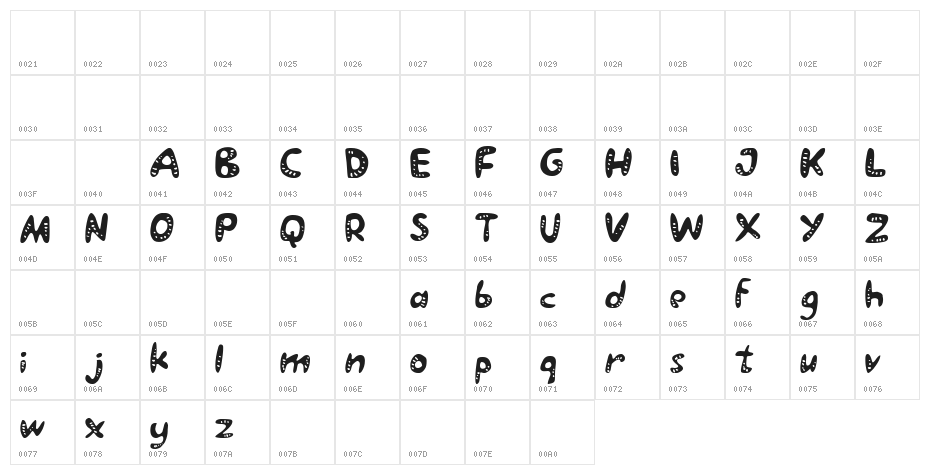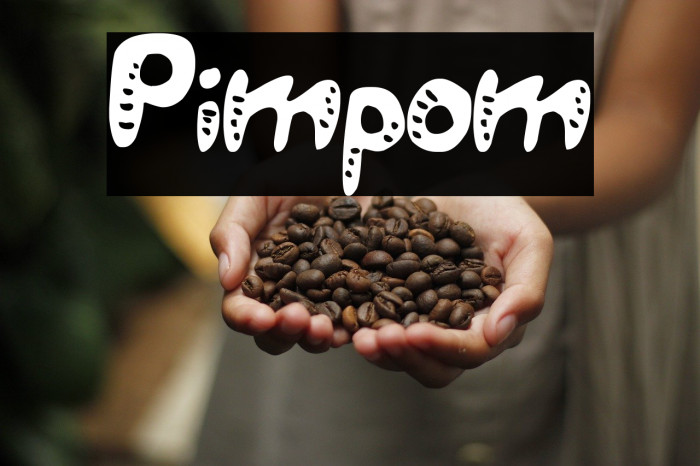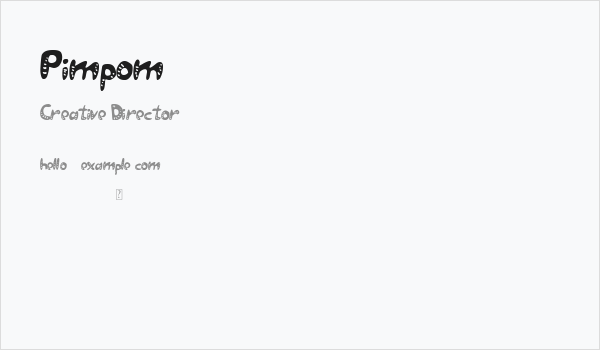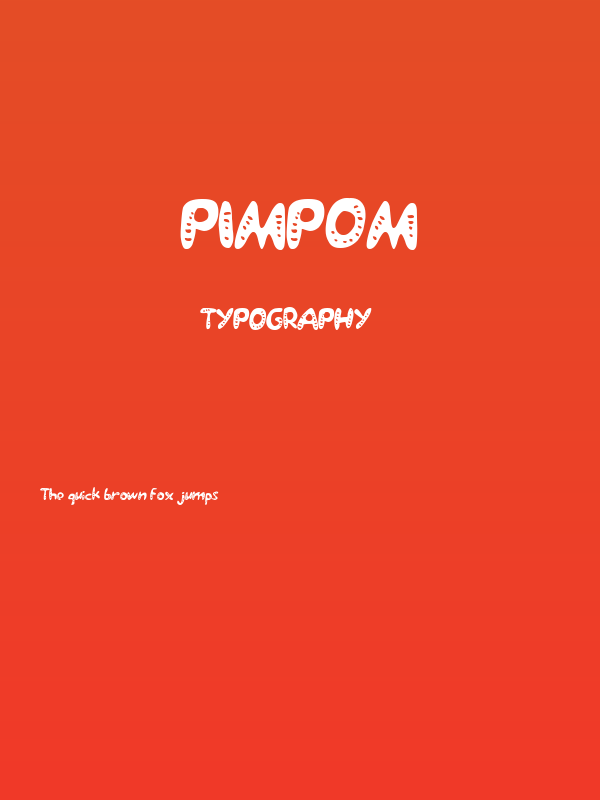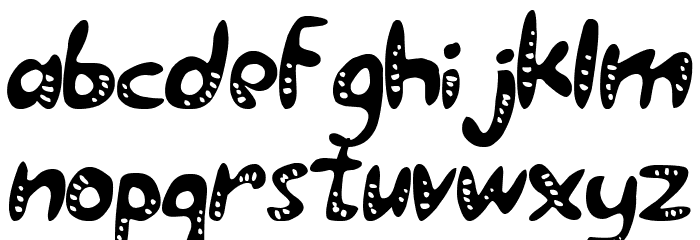
Pimpom Font
Pimpom Description
This playful and whimsical font features bold, rounded characters with a unique dotted pattern inside each letter. The design is reminiscent of a fun, childlike style, making it perfect for creative and informal projects. The letters are evenly spaced, and the overall appearance is both eye-catching and approachable. The font's decorative elements add a sense of movement and energy, making it suitable for projects that aim to convey a sense of joy and playfulness.